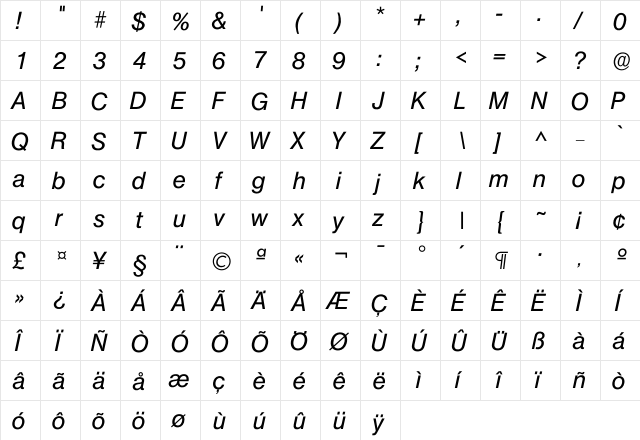
Iolympia Medium
Design Context for Iolympia Typeface
Iolympia offers clean, dependable letterforms without strong stylistic allegiance, making it a practical choice for designers who need flexibility.
Pro Tip: Use Iolympia in both headline and body roles to test its range before committing to a single application.